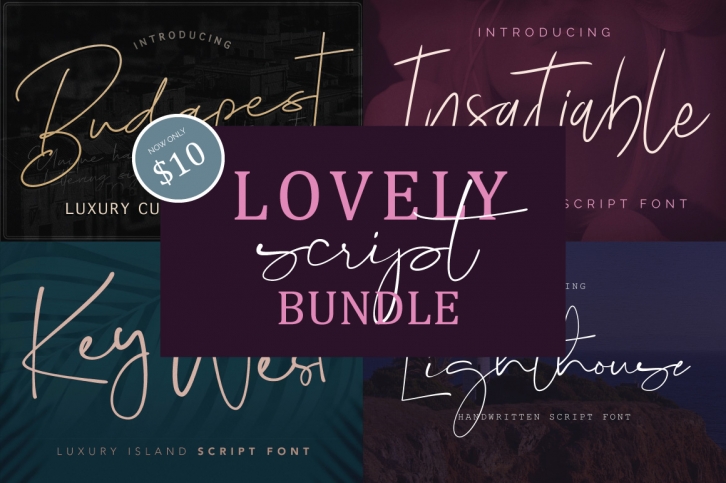
Lovely Script Bundle is a trendy and unique font with an authentic style. It was designed by Digital Hustler and it's a great choice for creative people who need such a font. It was released on January 2, 2019 and the file size is 3.41 MB. Lovely Script Bundle will add an organic vibe to any design idea!